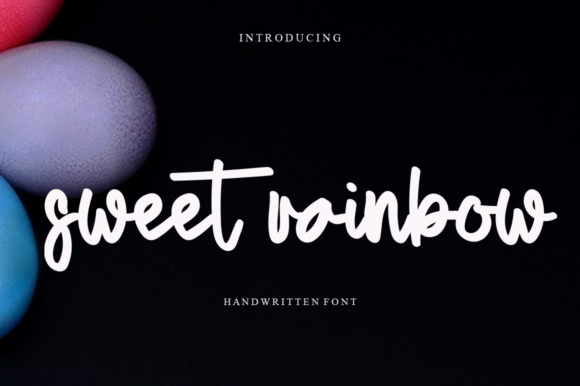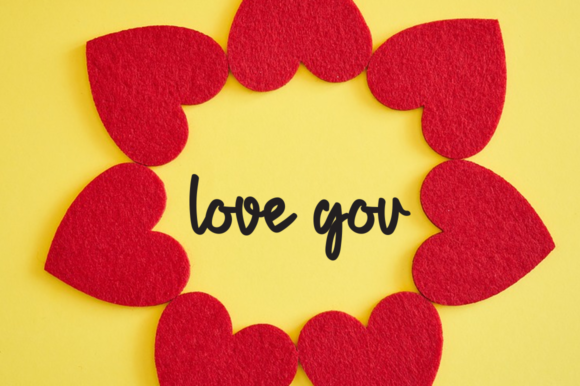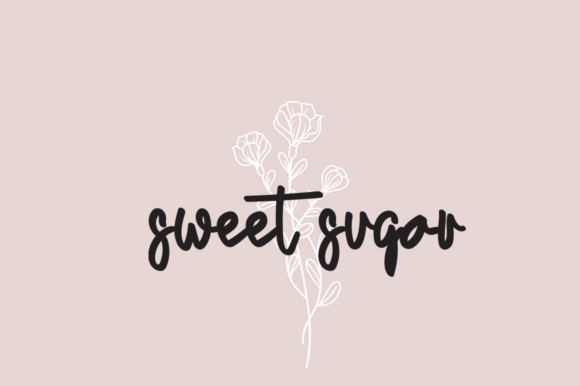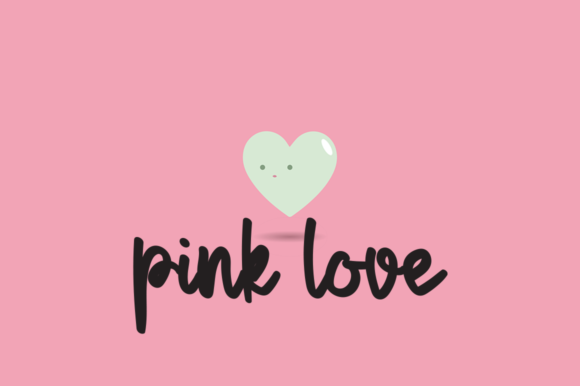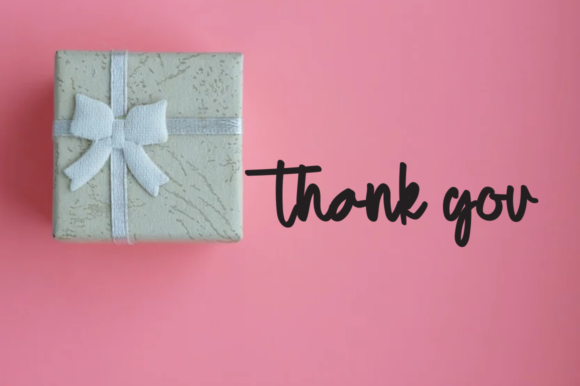
About Sweet Rainbow Font
Sweet rainbow is a splendid handwritten font that looks effortless and incredibly natural. It would make a wonderful addition to your fonts library, as it has the potential to enhance any creation.